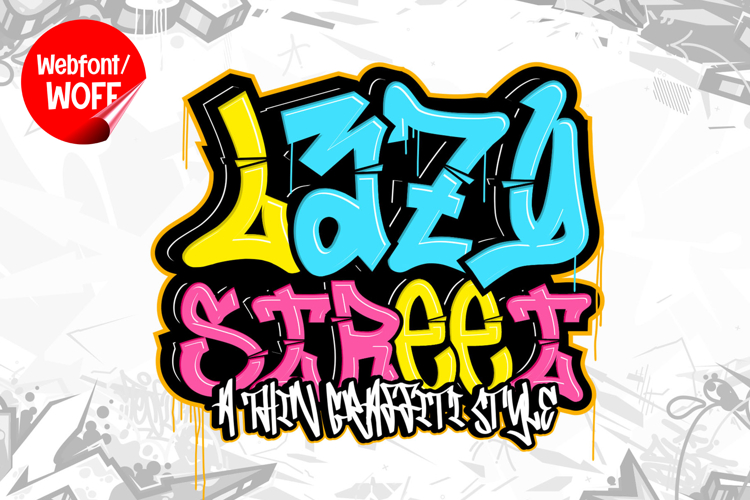
Lazy Street | 3D Layered Graffiti Webfont for Urban Creative
Lazy Street is a 3D layered graffiti webfont designed to bring relaxed urban vibes and bold street-style character into modern website design. Inspired by graffiti throw-ups, laid-back tagging culture, and layered mural lettering, this font features chunky shapes and dimensional effects that create a playful yet impactful visual identity. It is an excellent choice for projects that aim to combine creative street aesthetics with modern digital presentation.
Lazy Street includes a complete set of uppercase characters designed with graffiti-inspired forms enhanced by 3D layered construction. The letterforms are bold, rounded, and expressive, creating a relaxed urban appearance while maintaining strong visibility. These characteristics make it ideal for headlines, banners, hero sections, and featured content where a playful but eye-catching look is needed.
In addition to letters, the font includes numbers and punctuation, allowing flexible usage across various parts of a website. It works well for music platforms, streetwear branding, gaming interfaces, promotional campaigns, and creative portfolios. Each character maintains a consistent layered graffiti style, ensuring a cohesive and unified visual identity throughout the design.
With multilingual support, Lazy Street includes a wide range of accented characters, making it suitable for international websites and global audiences. This ensures content can be displayed clearly across different languages while preserving the bold and urban aesthetic.
The 3D layered graffiti style of Lazy Street makes it especially suitable for youth-oriented brands, urban blogs, entertainment websites, and digital campaigns. Its chunky and dimensional appearance adds personality and depth, helping websites stand out in visually competitive environments. The layered effect enhances visual impact while the relaxed forms create a more approachable and fun atmosphere.
Despite its decorative and stylized appearance, Lazy Street is designed with readability in mind. The spacing and proportions are carefully balanced to ensure clarity, particularly in display sizes. This allows designers to use the font effectively for impactful headings and short content without compromising usability.
Lazy Street is a webfont that combines graffiti aesthetics with layered depth and modern digital performance. Its bold shapes, dimensional structure, and laid-back urban character create a distinctive typographic presence that enhances website design. For projects that require a fun, creative, and visually engaging graffiti font, Lazy Street offers a strong and versatile solution.